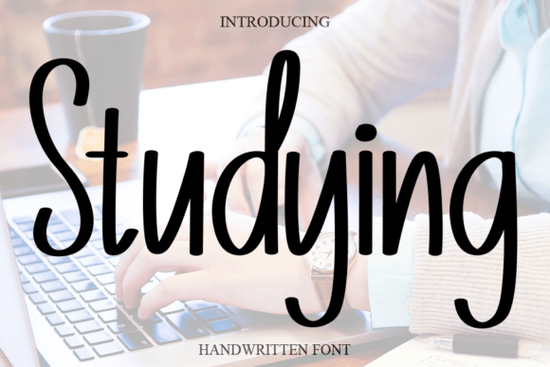
If you're looking for a font that feels warm and personal like a handwritten note from a friend Studying Font might be just what your next project needs. It’s a soft, flowing cursive script with a gentle rhythm that works well across many creative uses. Whether you’re designing wedding invitations, crafting greeting cards, or adding charm to a branding package, this font brings a touch of quiet elegance without feeling overly formal.
What makes Studying Font stand out?
Unlike bolder or more rigid scripts, Studying Font has a relaxed, natural flow. The letters connect smoothly, giving it a handwritten feel that’s both readable and inviting. It doesn’t scream for attention but still adds personality to any design. You’ll notice how the subtle curves and delicate strokes make it perfect for projects where you want something thoughtful and expressive.
It’s especially effective when used in smaller sizes think labels, quotes on social media graphics, or accents in lookbooks. Because it’s not too ornate, it pairs well with clean sans-serif fonts, letting your message shine without distraction.
Where can I use Studying Font?
This font fits naturally into several creative categories:
- Wedding stationery – From save-the-dates to menu cards, its romantic tone complements love-themed designs.
- Greeting cards – Perfect for birthdays, thank-yous, or seasonal messages that feel heartfelt.
- Branding & logos – Great for small businesses, boutiques, or artists wanting a friendly, approachable identity.
- Fashion & lookbooks – Adds a personal touch to captions or styling notes.
- Print-on-demand items – Ideal for mugs, tote bags, and wall art with short inspirational phrases.
You’ll also find it useful in digital marketing materials like email headers or Instagram story text, where readability and warmth matter.
How does it compare to similar fonts?
If you’ve explored other script fonts, you might have noticed some are too dramatic or hard to read at small sizes. Studying Font avoids those pitfalls. It’s less flashy than some options, which makes it more versatile. For example, if you love the softness of Sunlight Font, you’ll appreciate how Studying keeps things even more understated and consistent.
Compared to Letterland Font, it leans more toward classic handwriting rather than playful or childlike styles. And while Shina Qatline Font has a more decorative flair, Studying stays simple and timeless.
If you enjoy farmhouse-inspired designs with a cozy vibe, Farmhouse Font shares a similar warmth but with a rustic edge. Studying is more refined, making it better suited for polished yet personal projects.
Best practices for using this font
To get the most out of Studying Font, keep these tips in mind:
- Use it sparingly limit it to headings, quotes, or key words. Too much can overwhelm the eye.
- Pair it with a neutral, easy-to-read font (like Open Sans or Lato) for balance.
- Stick to dark text on light backgrounds for best legibility.
- Adjust letter spacing slightly if needed especially in long lines to improve flow.
It works beautifully in both digital and print formats, so whether you’re creating a PDF flyer or printing a custom notebook cover, it holds up well.
When choosing a font for your next creative task, think about mood as much as style. Studying Font isn’t flashy, but it’s reliable like a favorite pen that always writes smoothly. If you value clarity, charm, and a little quiet grace in your work, this could become a staple in your toolkit.
Next step: Try pairing Studying Font with a simple layout and a short phrase like “Thank you for today” or “Let’s dream together.” See how it feels in context. You might just discover your new favorite way to add soul to your designs.